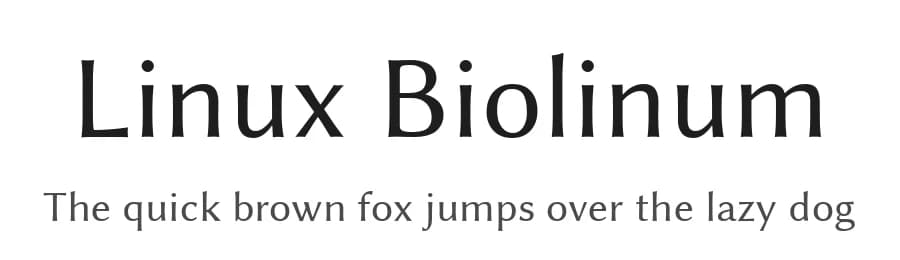
About Linux Biolinum Font
Linux Biolinum is a sans-serif font designed by Philipp H. Poll. It includes 2496 glyphs, a regular weight, TTF (TrueType) format, and 534 languages. Linux Biolinum is free to download; check the license details on this page before commercial use. Sans-serif fonts like Linux Biolinum work best for clean body text, user interfaces, branding, and modern layouts.
Linux Biolinum ships with 16 OpenType features you can switch on in apps that support them (Illustrator, InDesign, Affinity, Figma, CSS font-feature-settings).
- Small capitals from capitals
- Historical ligatures
- Lining figures
- Small capitals
- Slashed zero
Linux Biolinum supports 534 languages.
Linux Biolinum Font is a versatile sans-serif font that works for both headings and body text. Pair it with a contrasting serif or slab serif font to add visual interest and a clear distinction between titles and body copy.
Linux Biolinum Font
Linux Biolinum Font is a sans serif typeface by Philipp H. Poll, ideal for logos, invitations, branding, and creative projects.